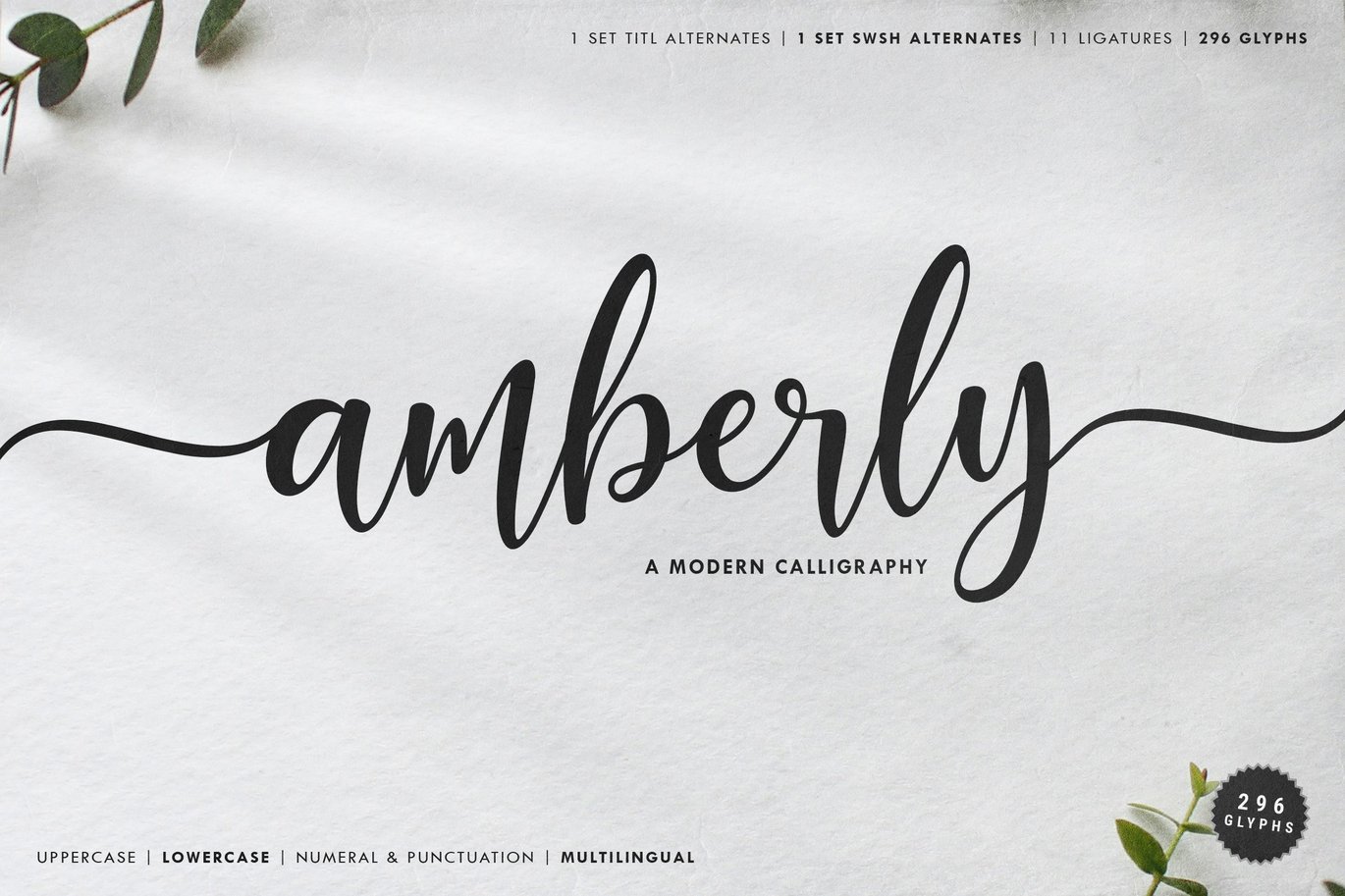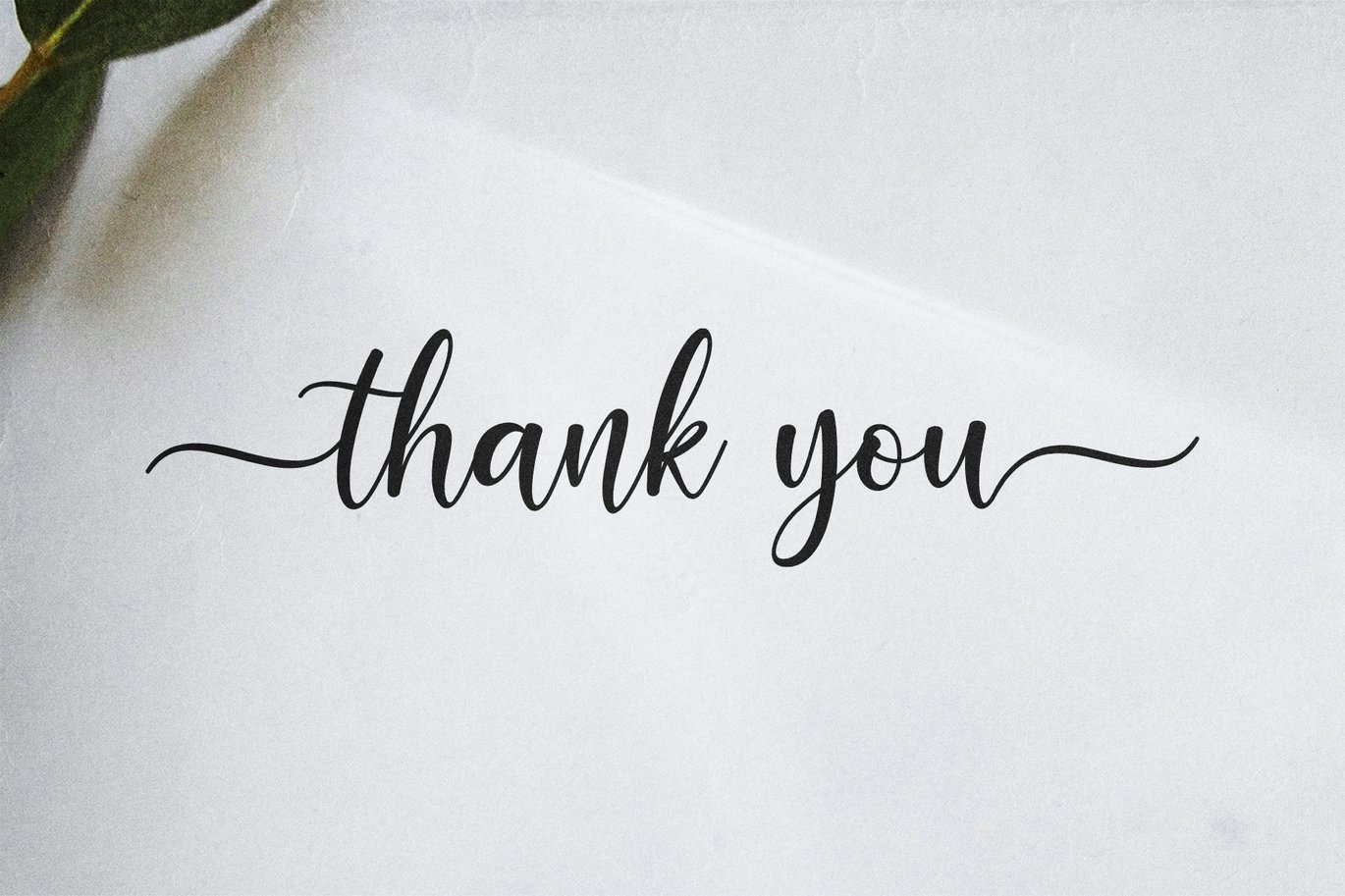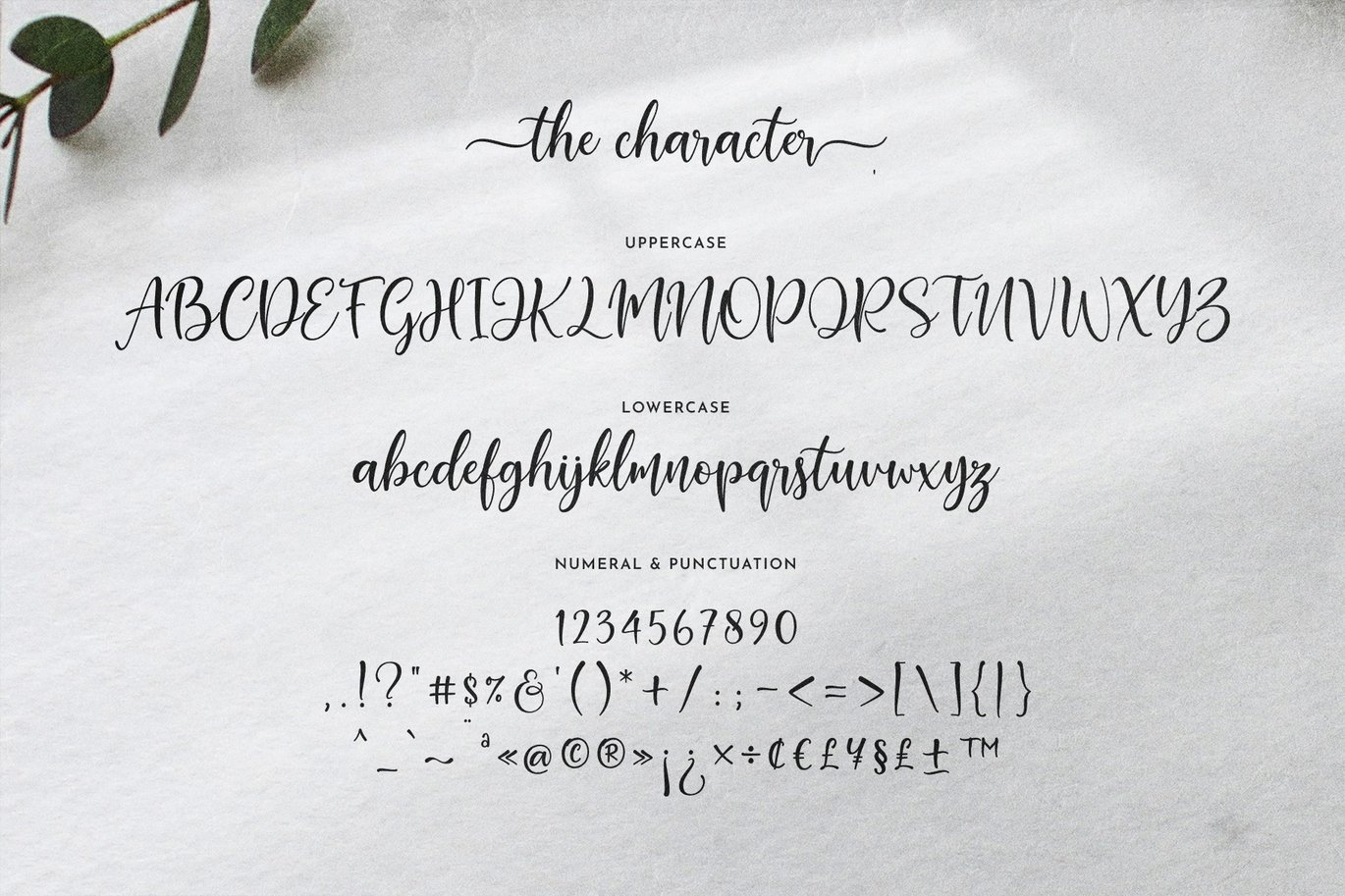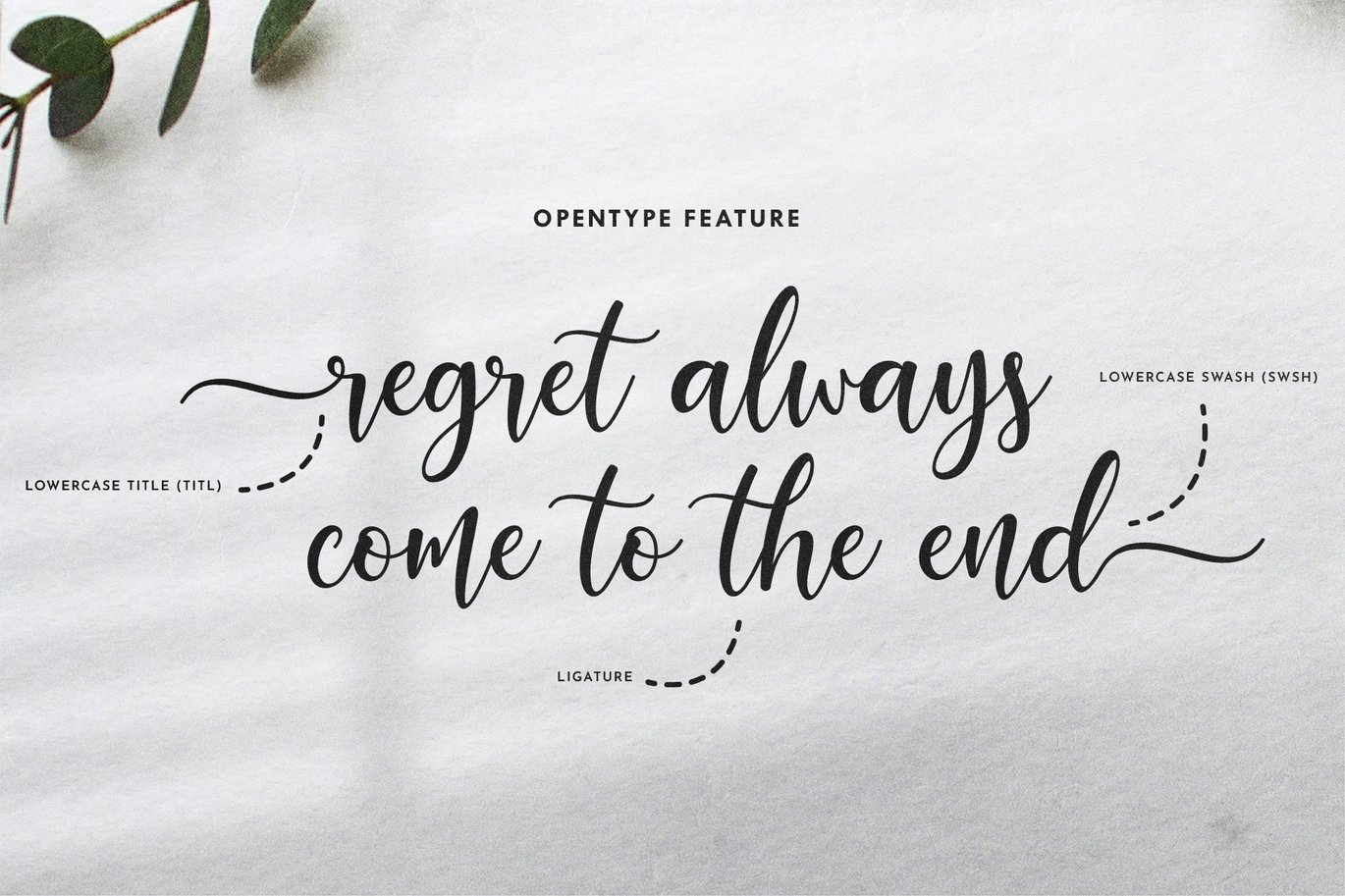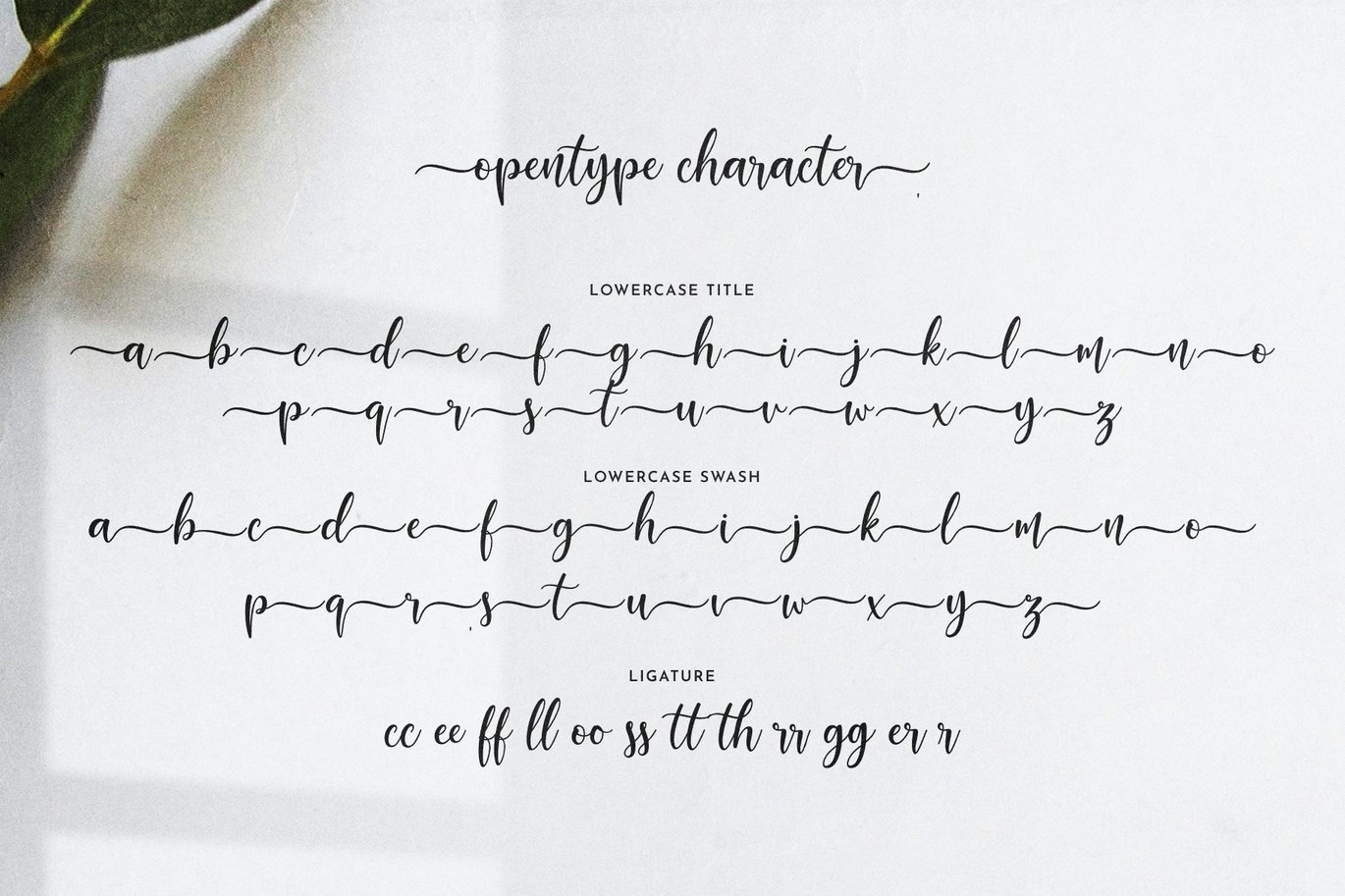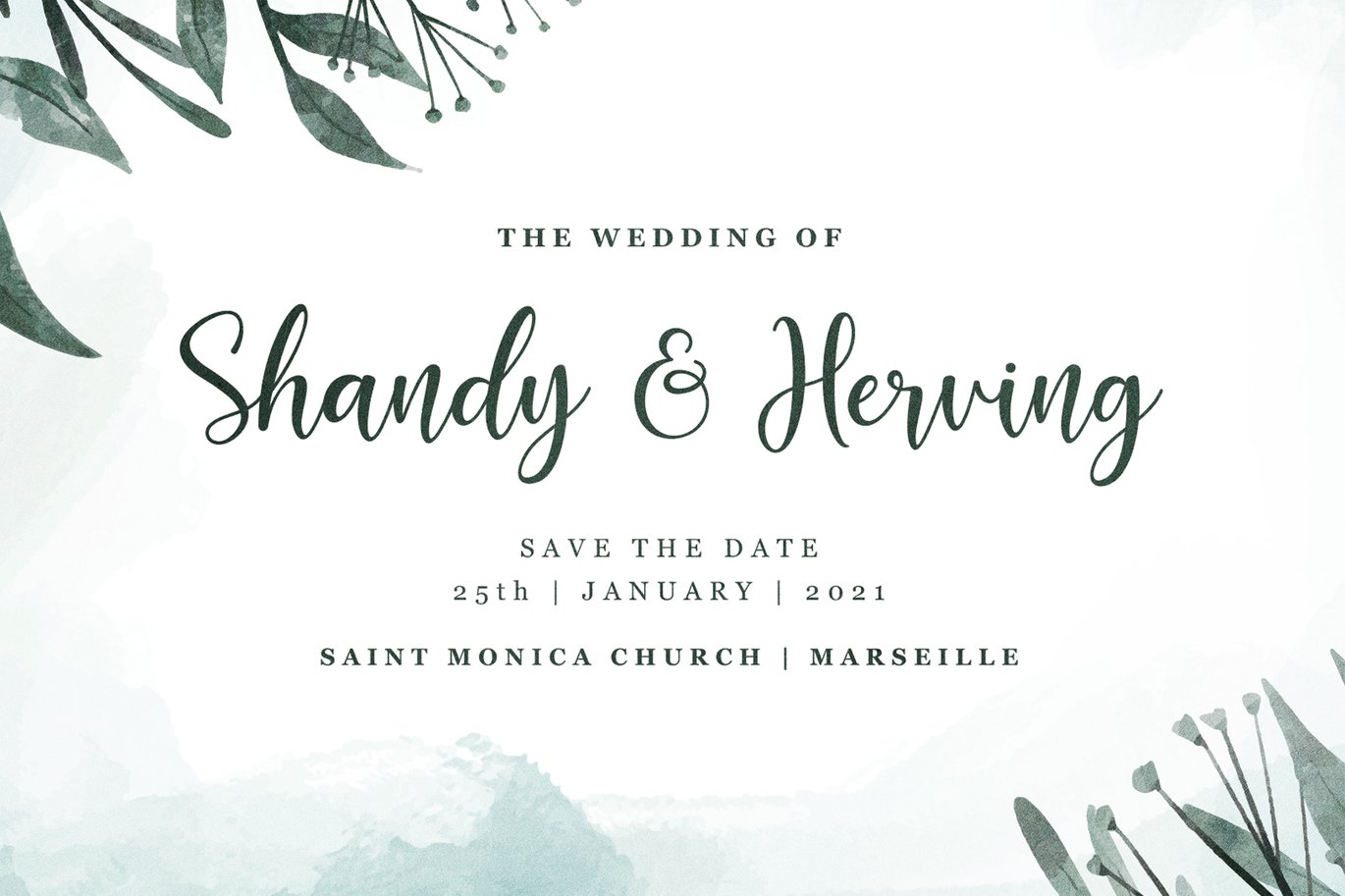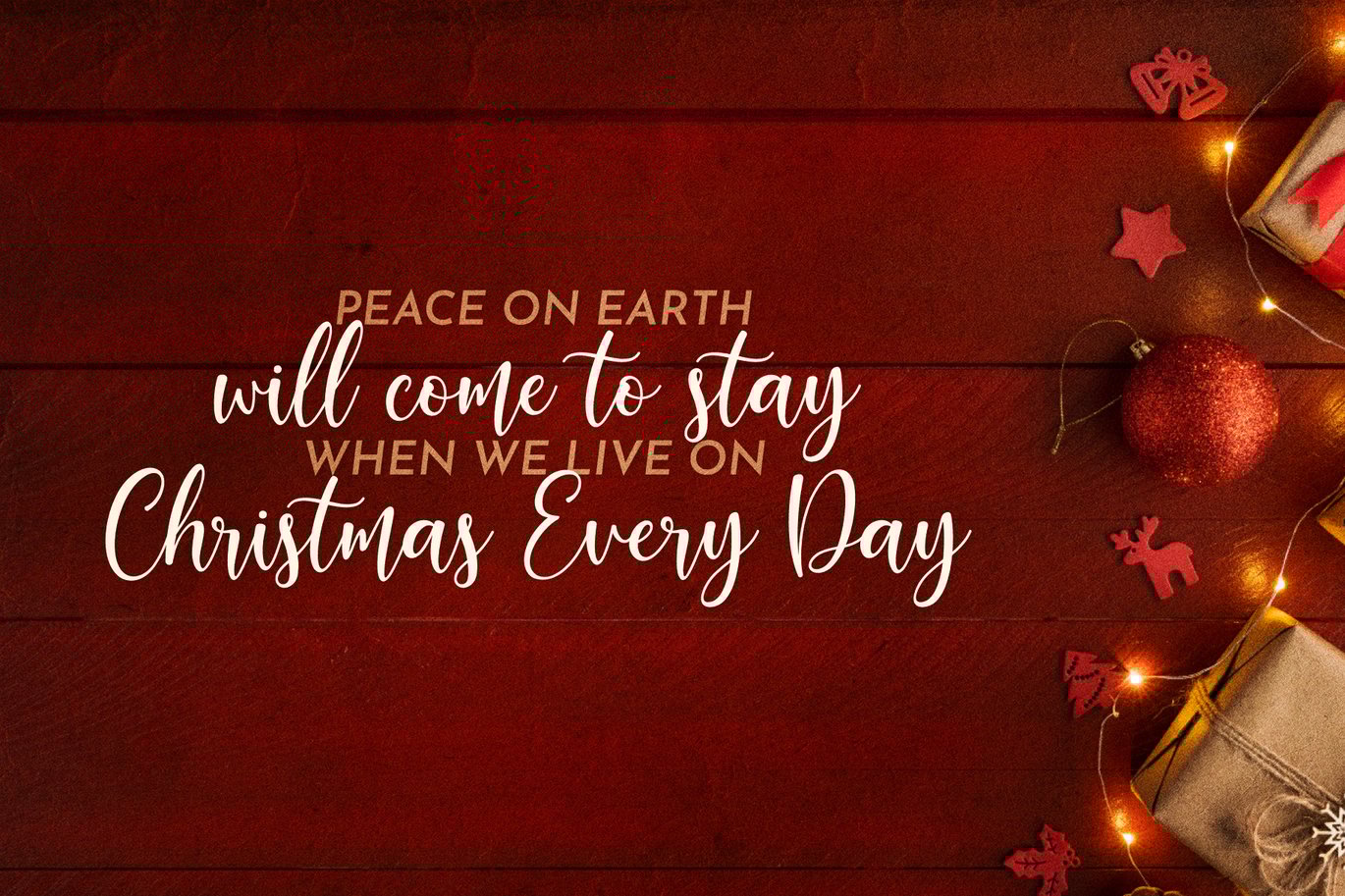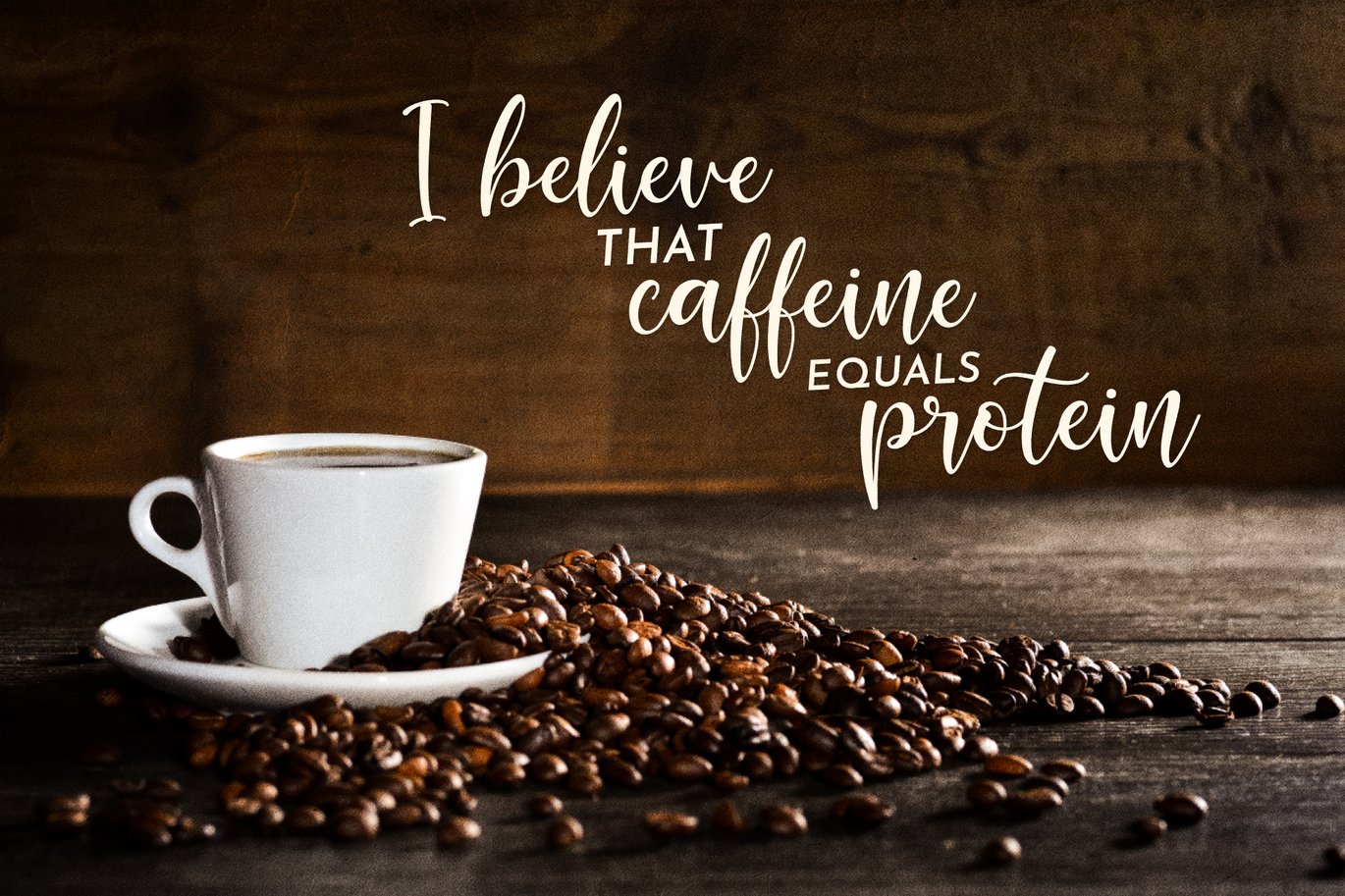
Amberly – Modern Calligraphy Font
Amberly is a modern calligraphy font, has an elegant design with handwritten feel .
This fonts will make your design look elegant , casual, and authentic.
- Numeral and Punctuation
- titl & swsh